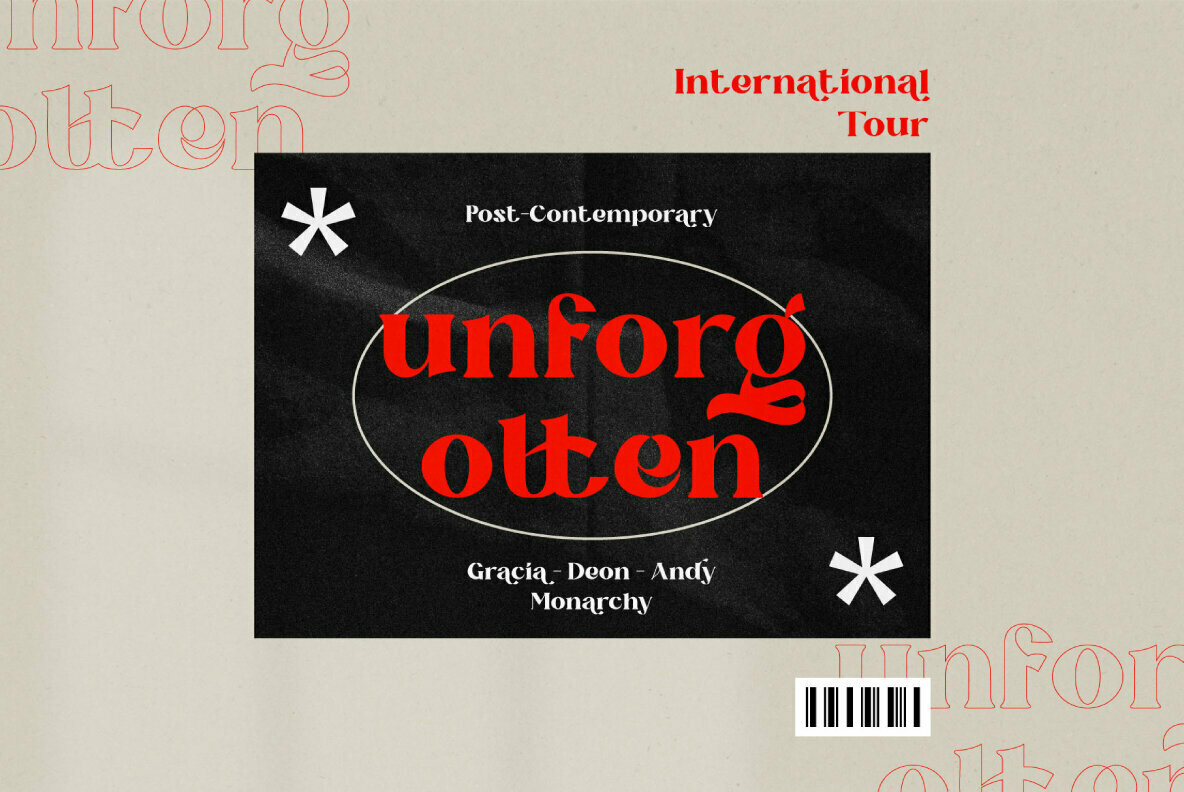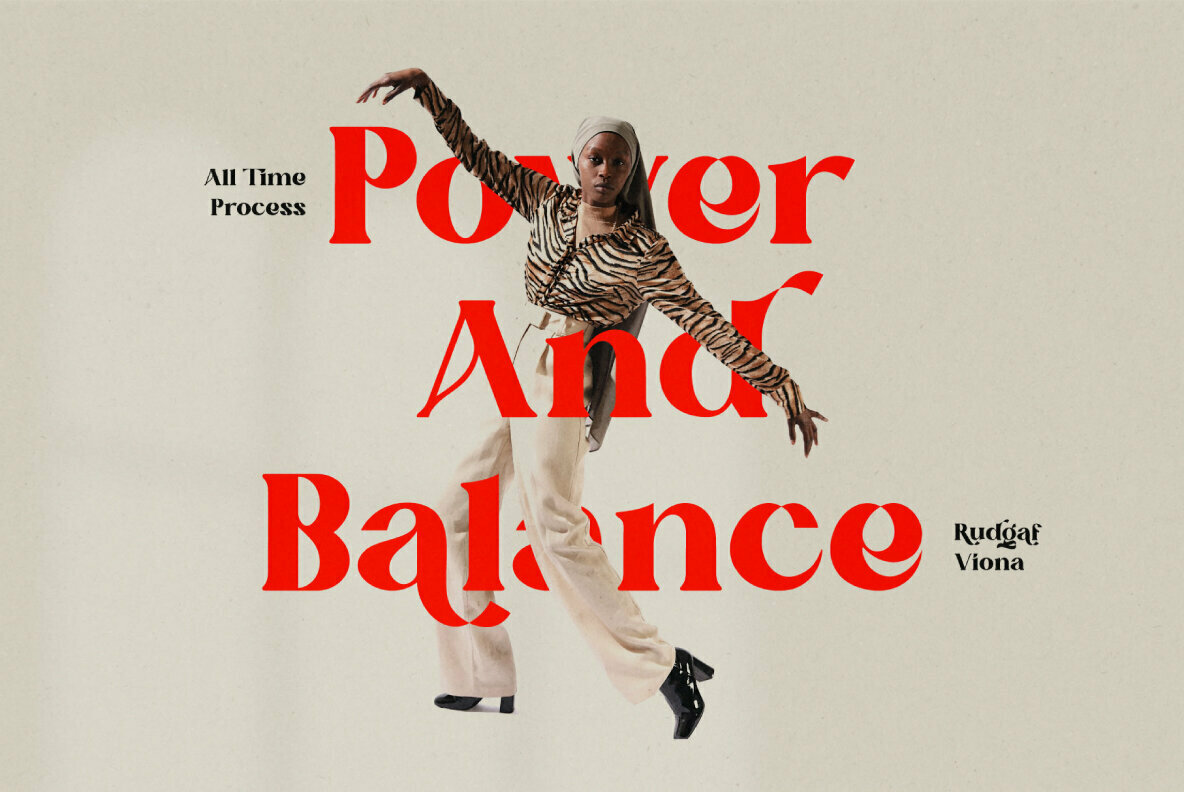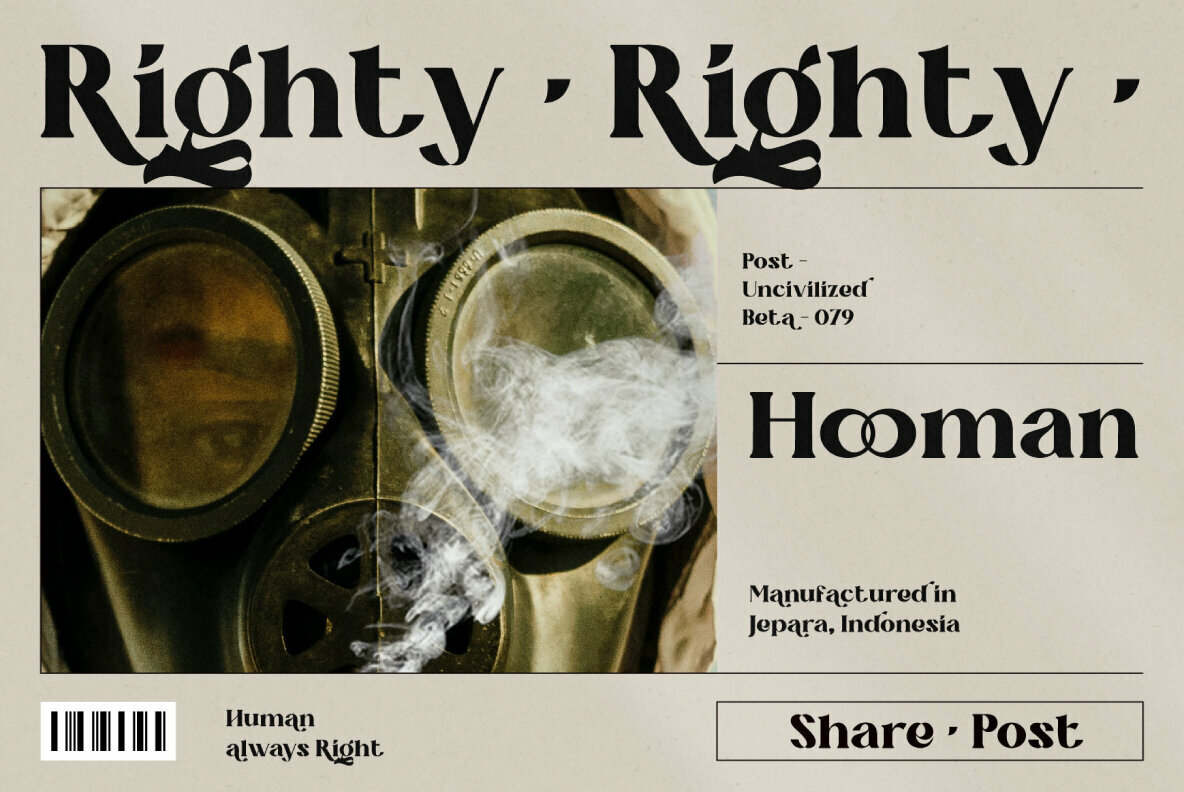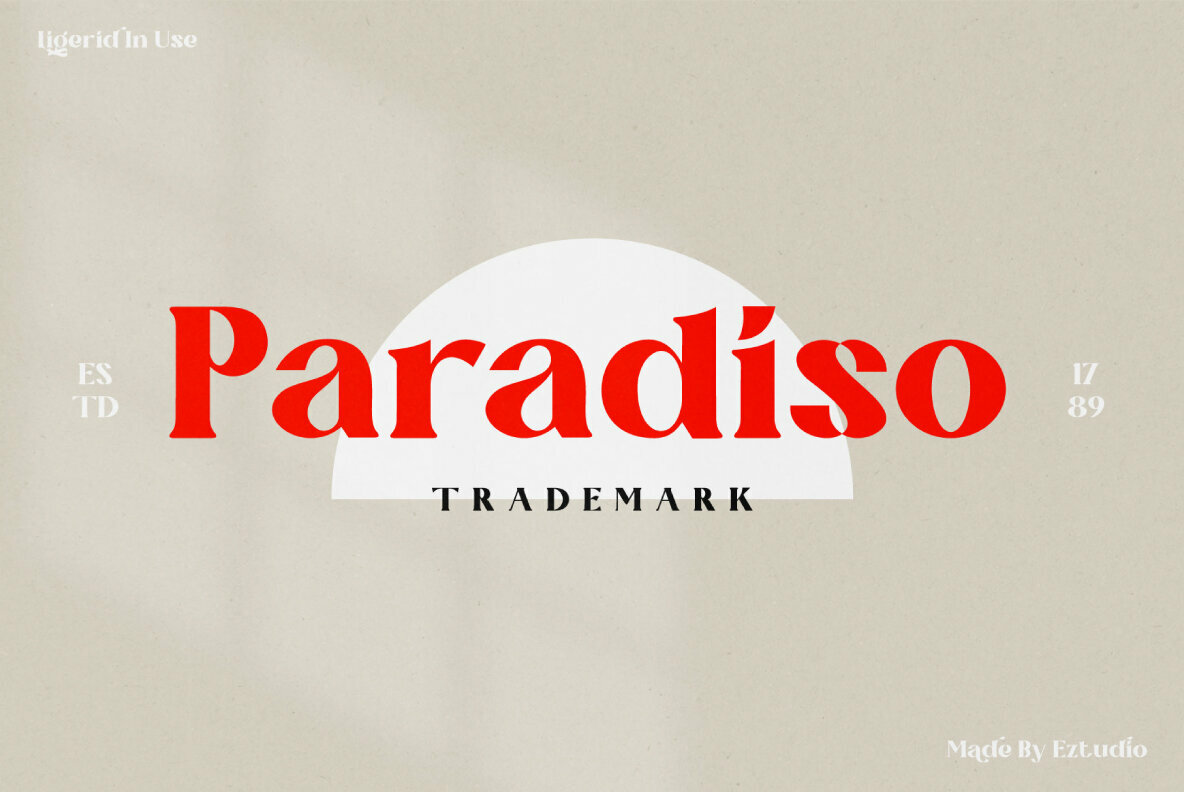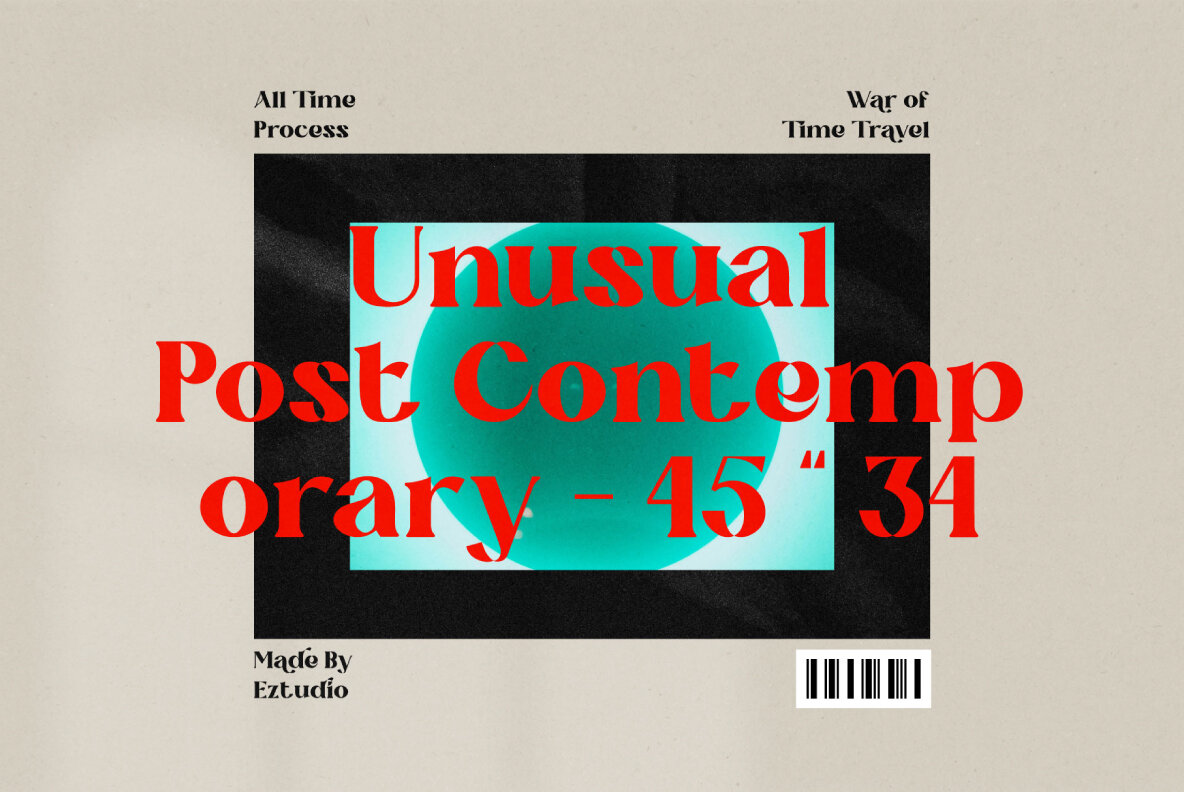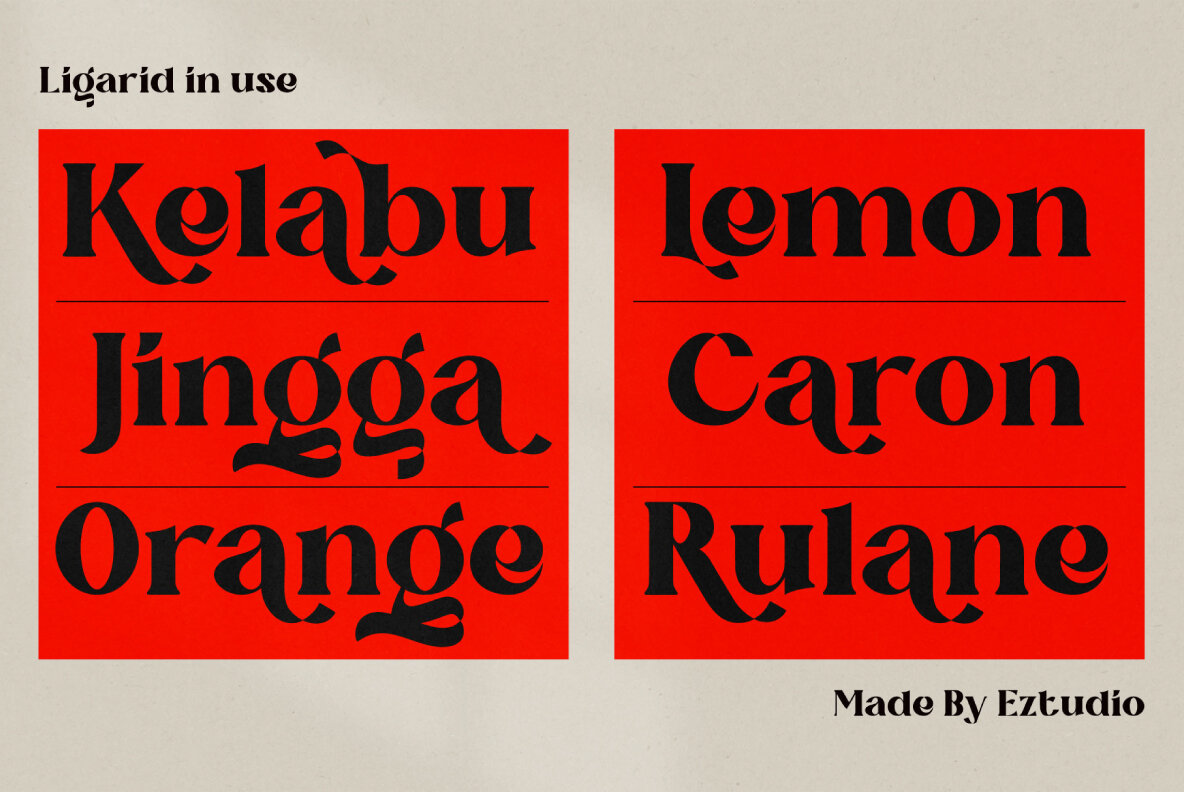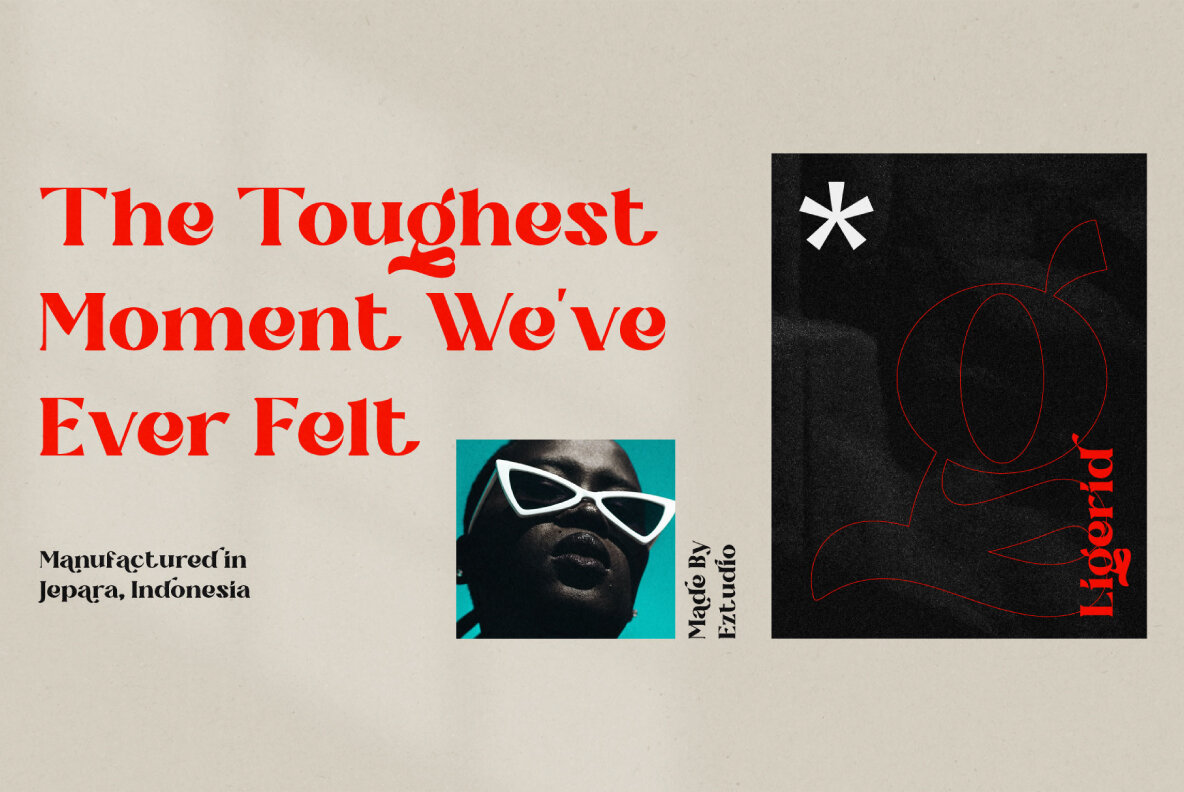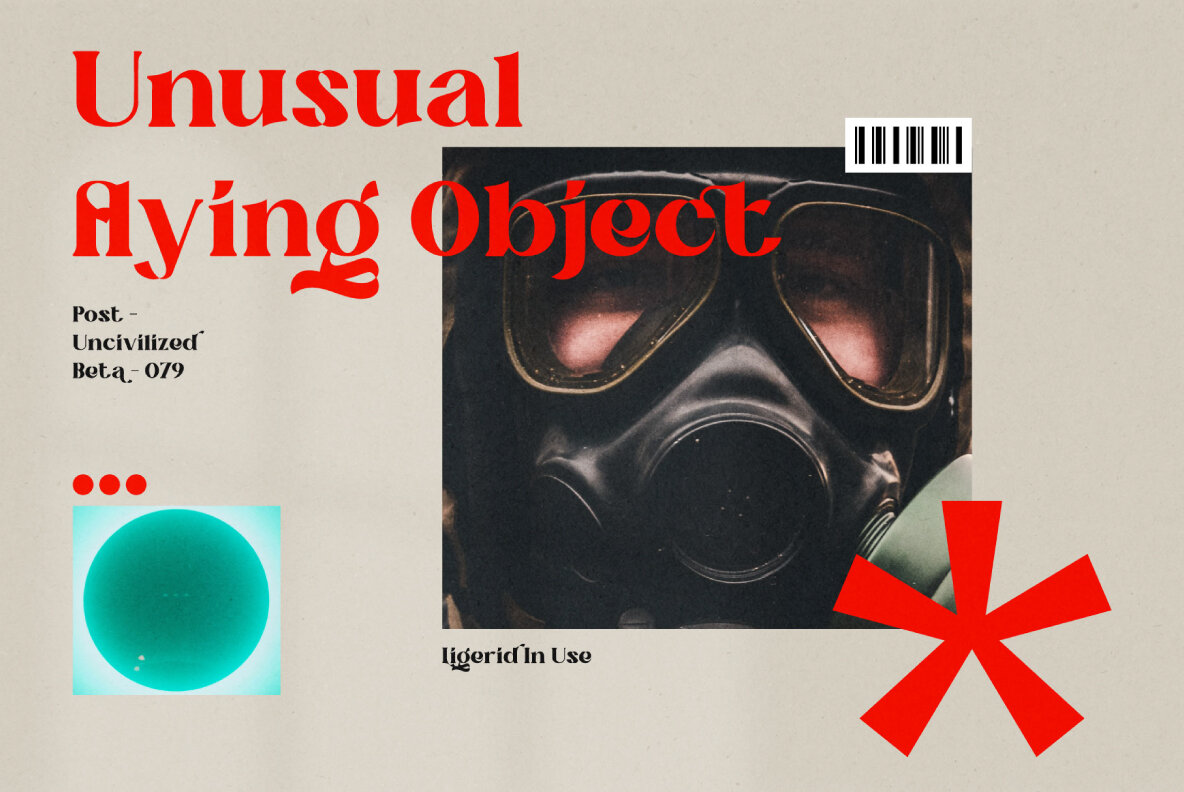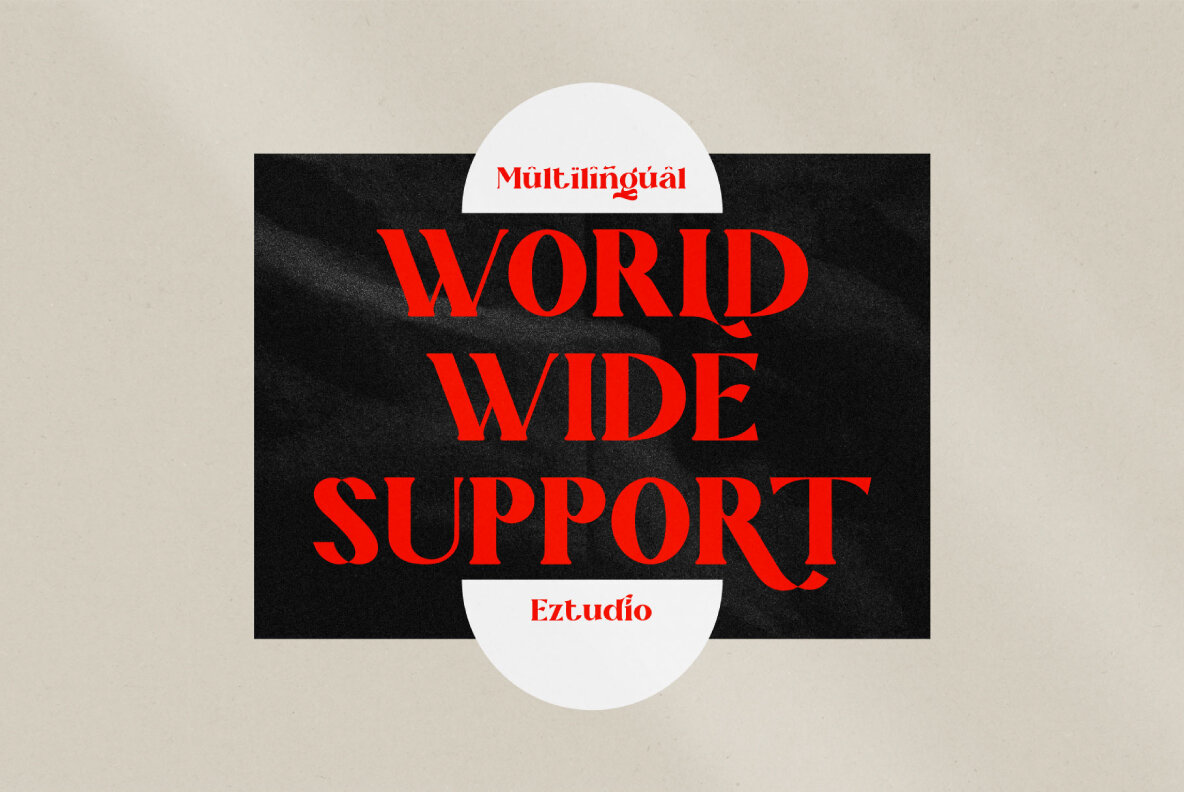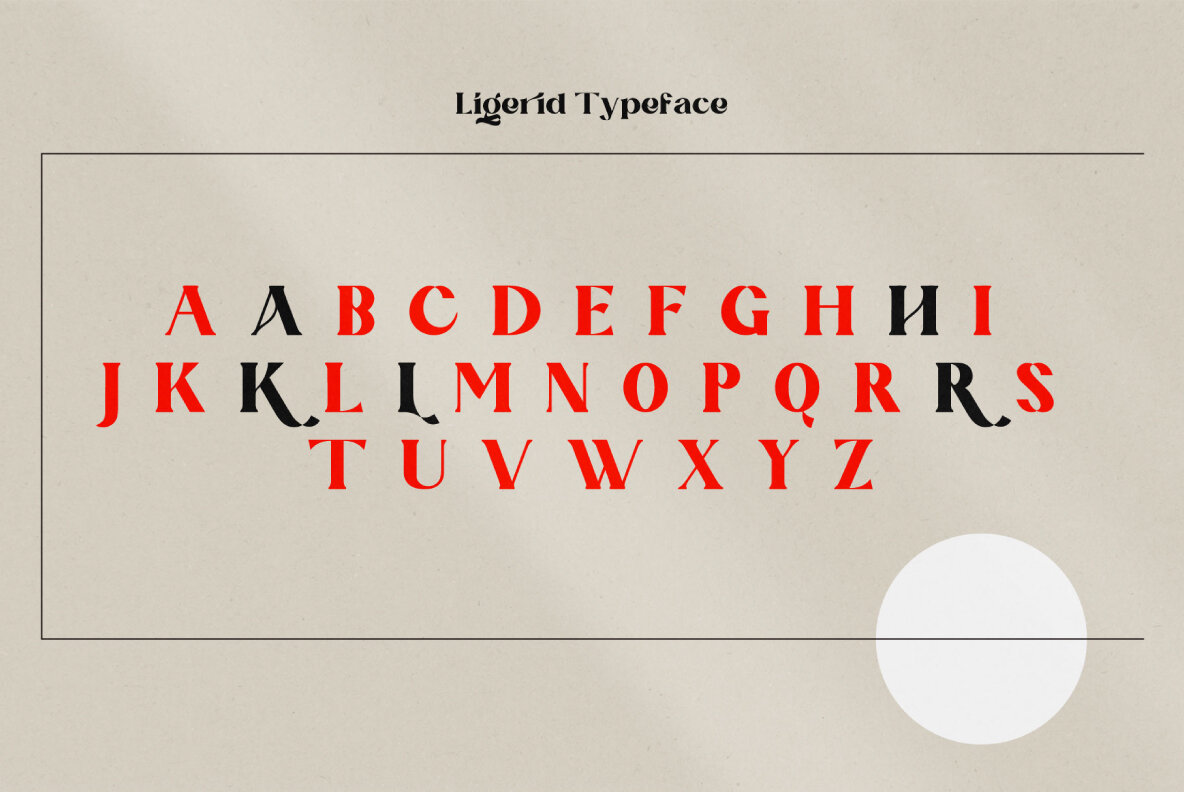
Ligerid Font
Ligerid
Ligerid by Eztudio is a display serif font that melds contemporary flair with timeless elegance, making it ideal for various design applications. With its bold and distinctive look, Ligerid enhances projects ranging from magazines to branding materials.Ligerid: A Fresh Display Serif for Modern Designs
Ligerid's versatility makes it a preferred choice for a myriad of design needs.